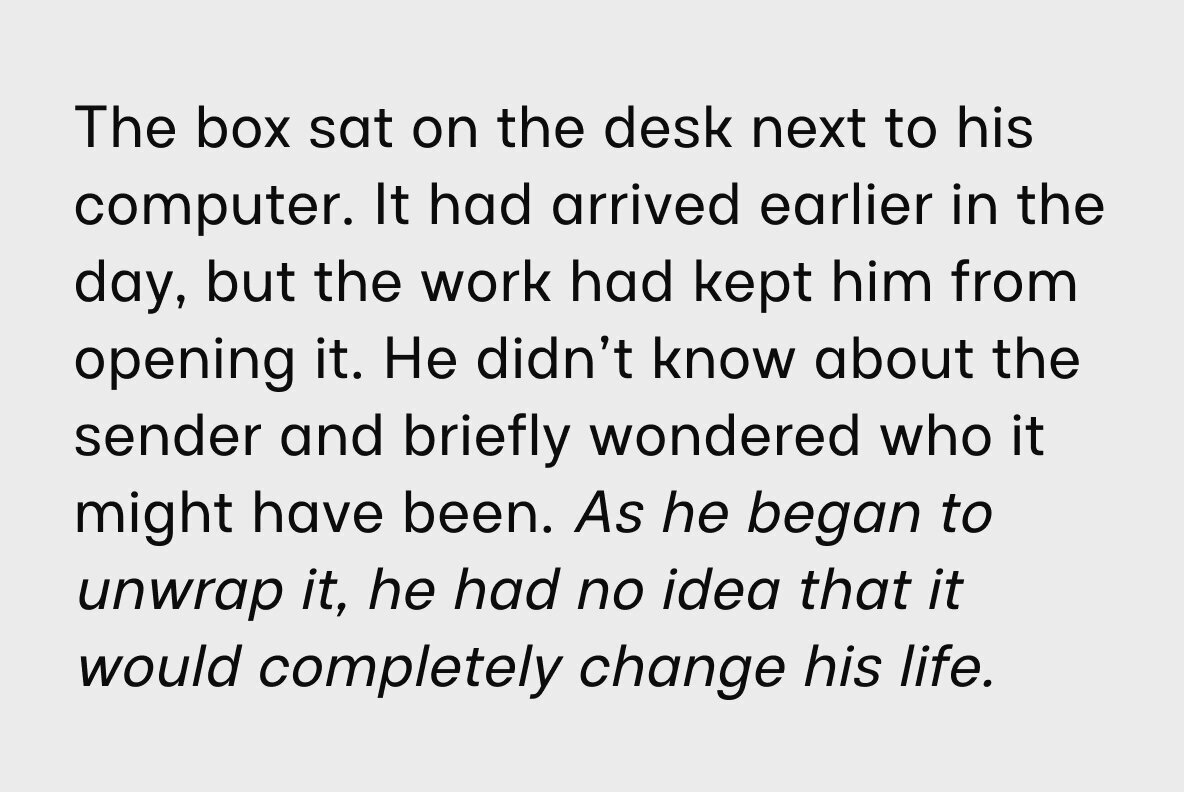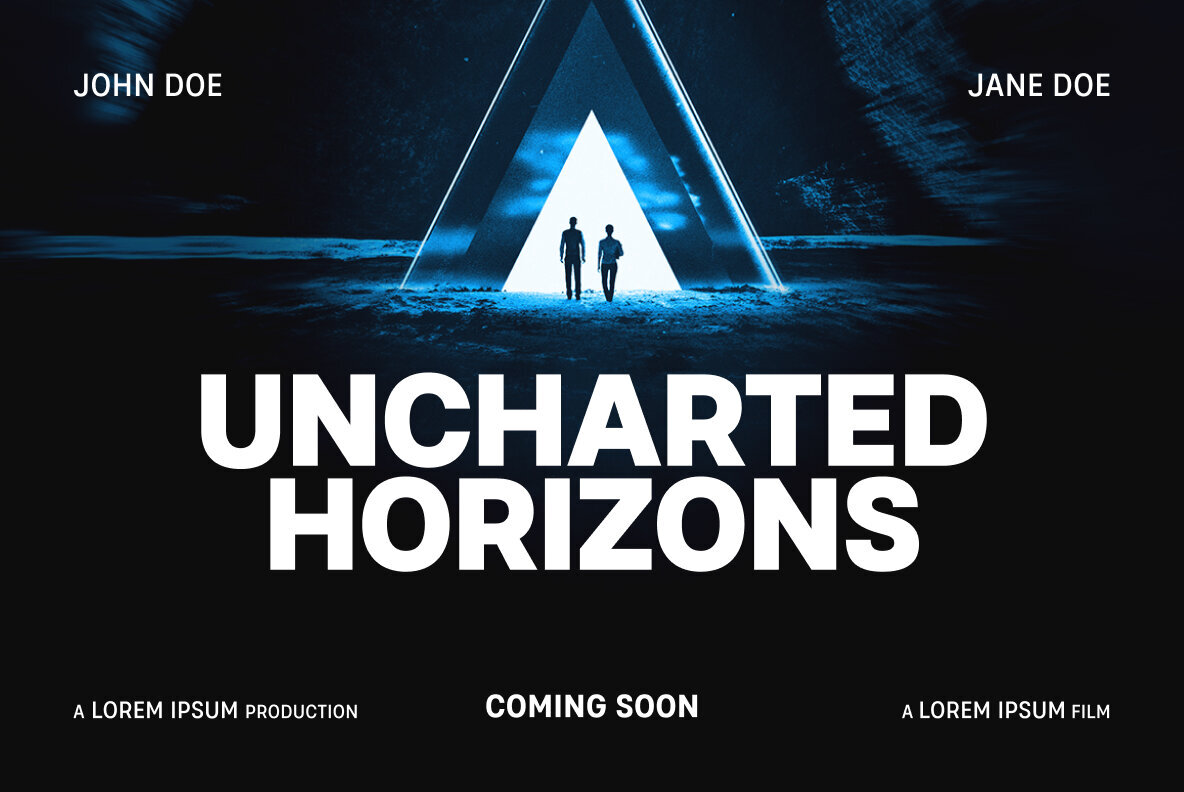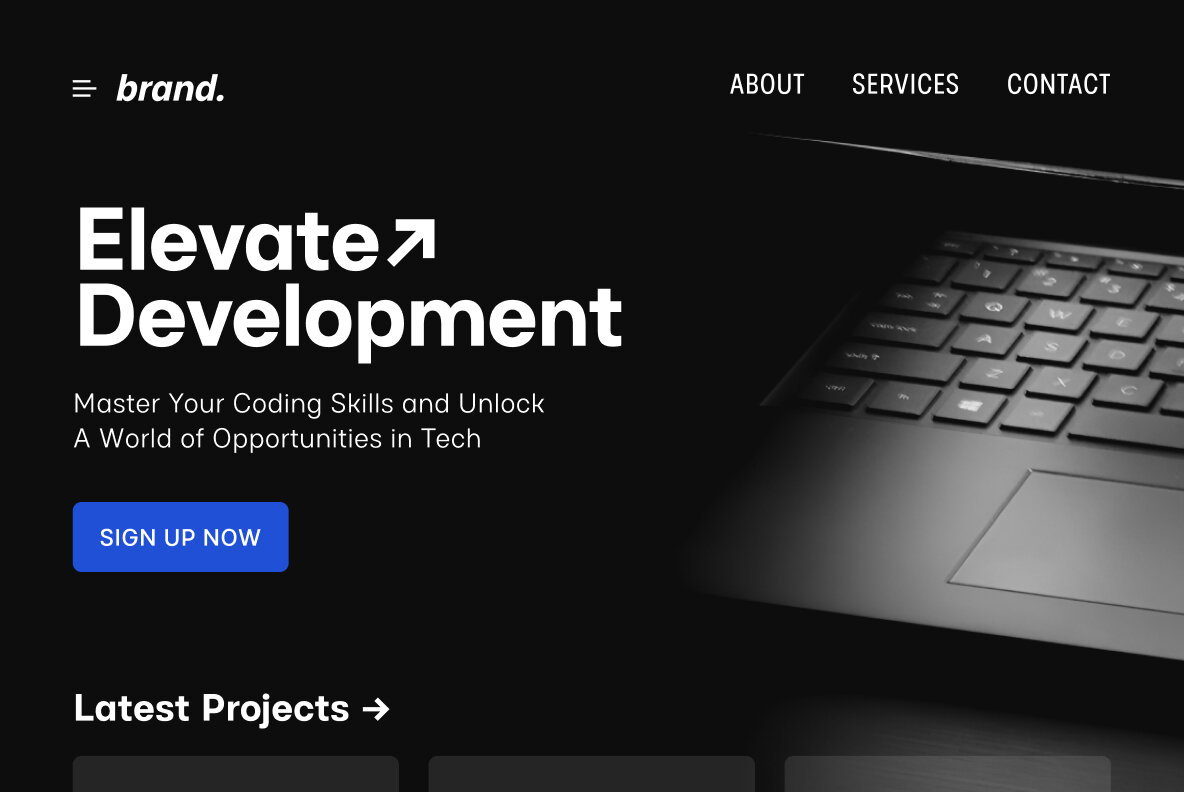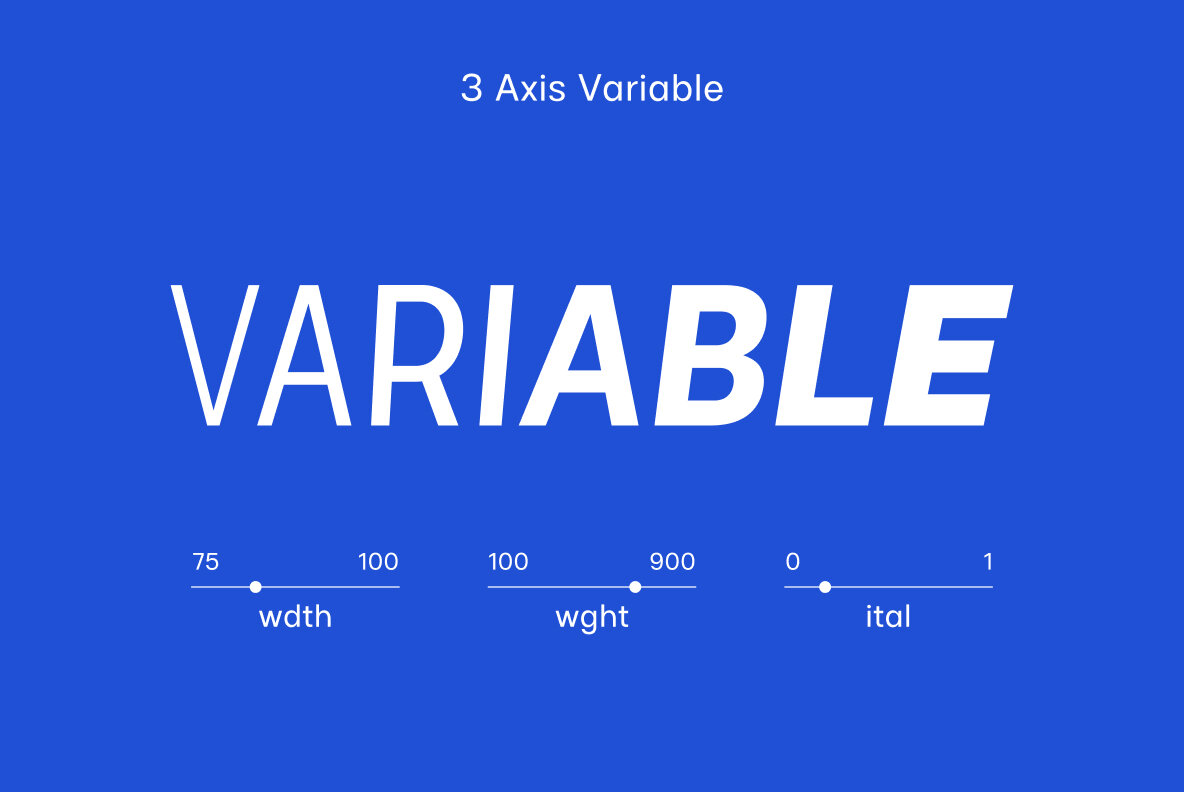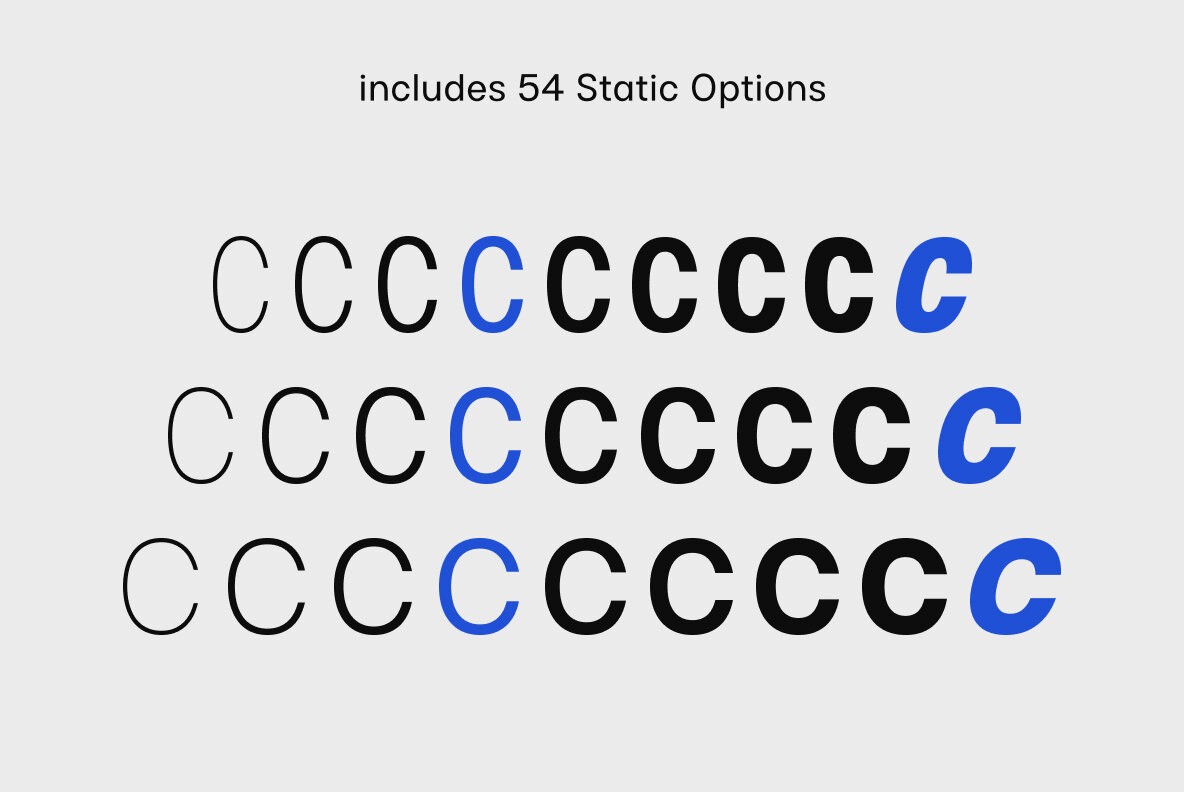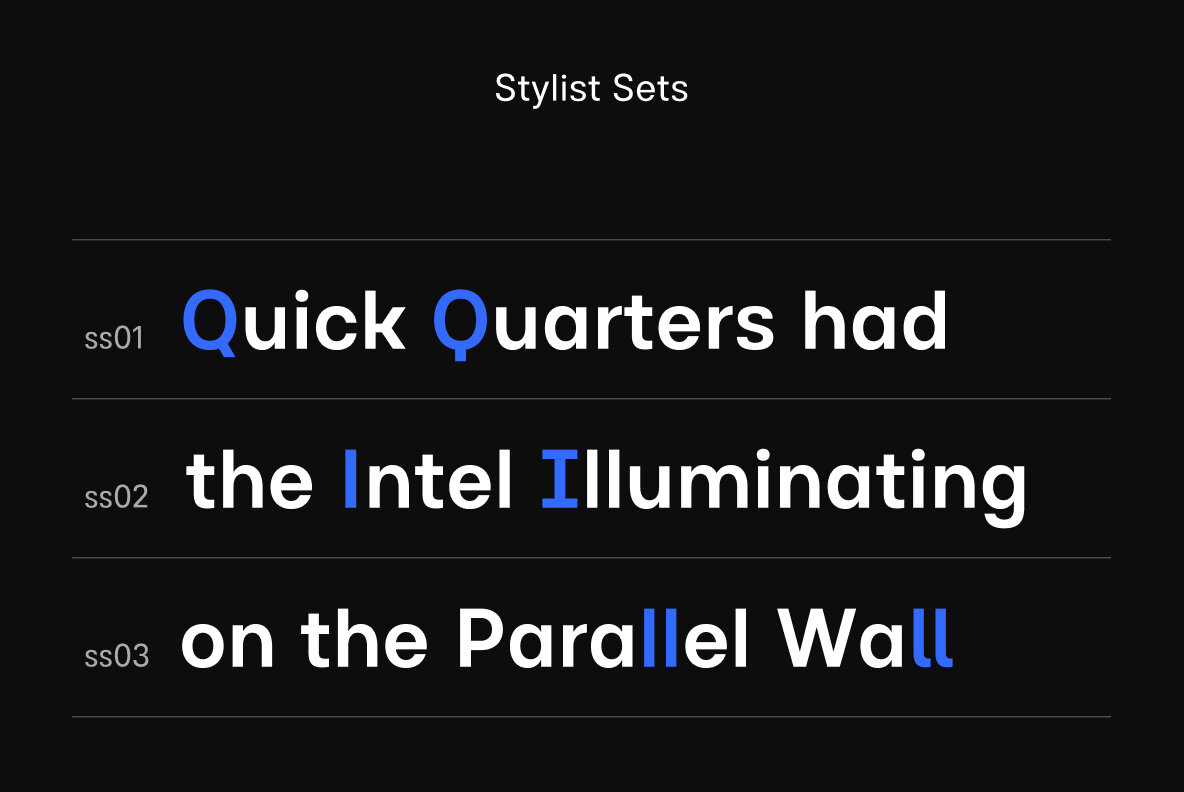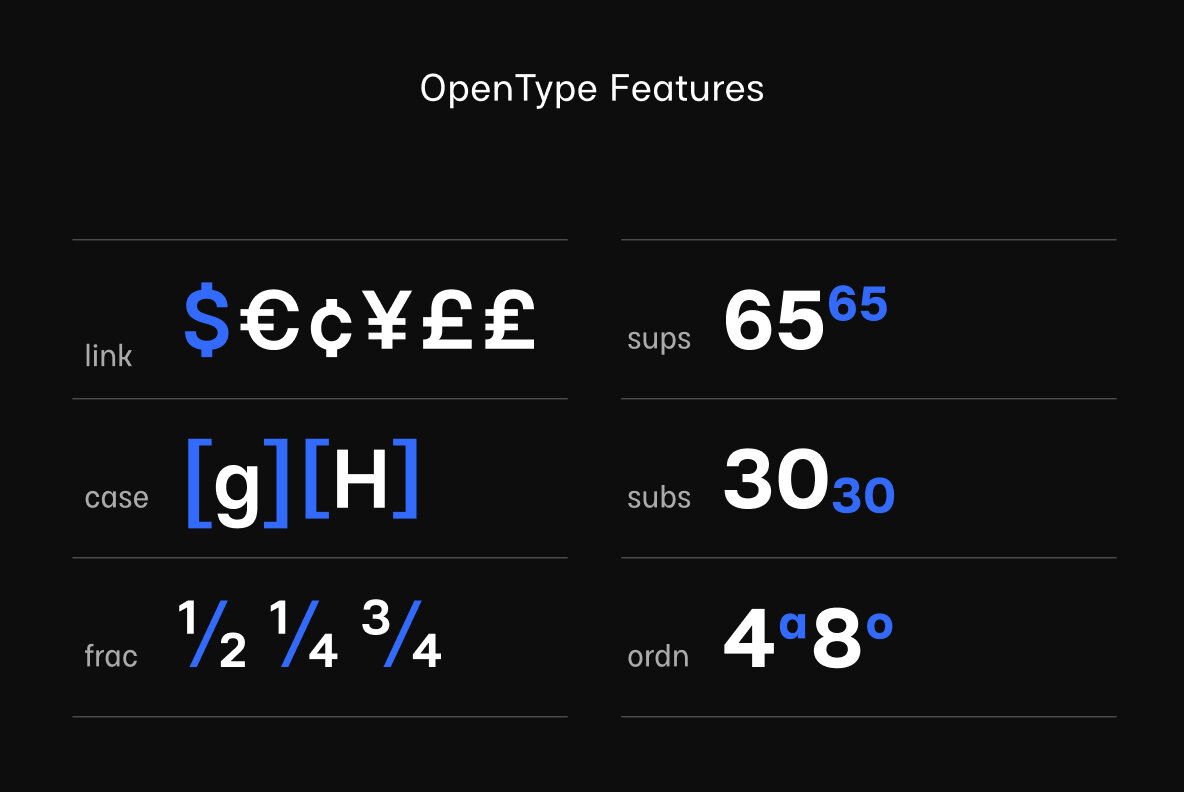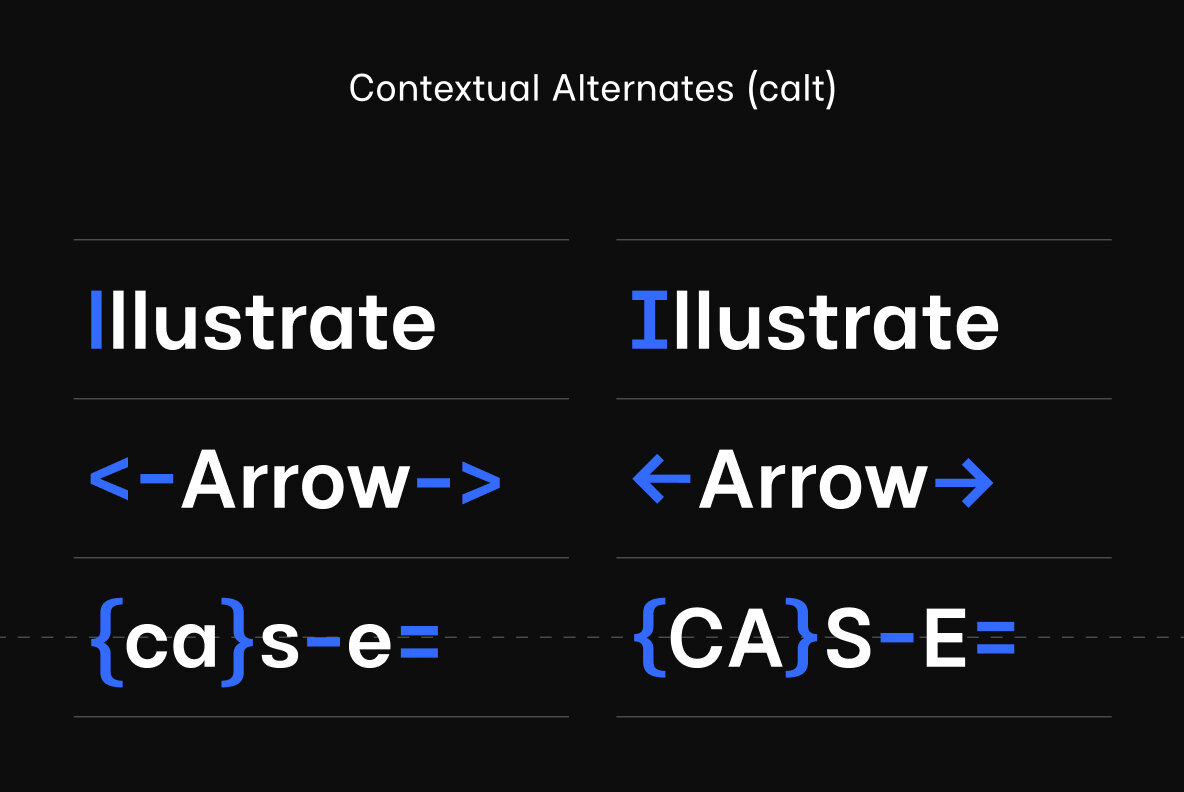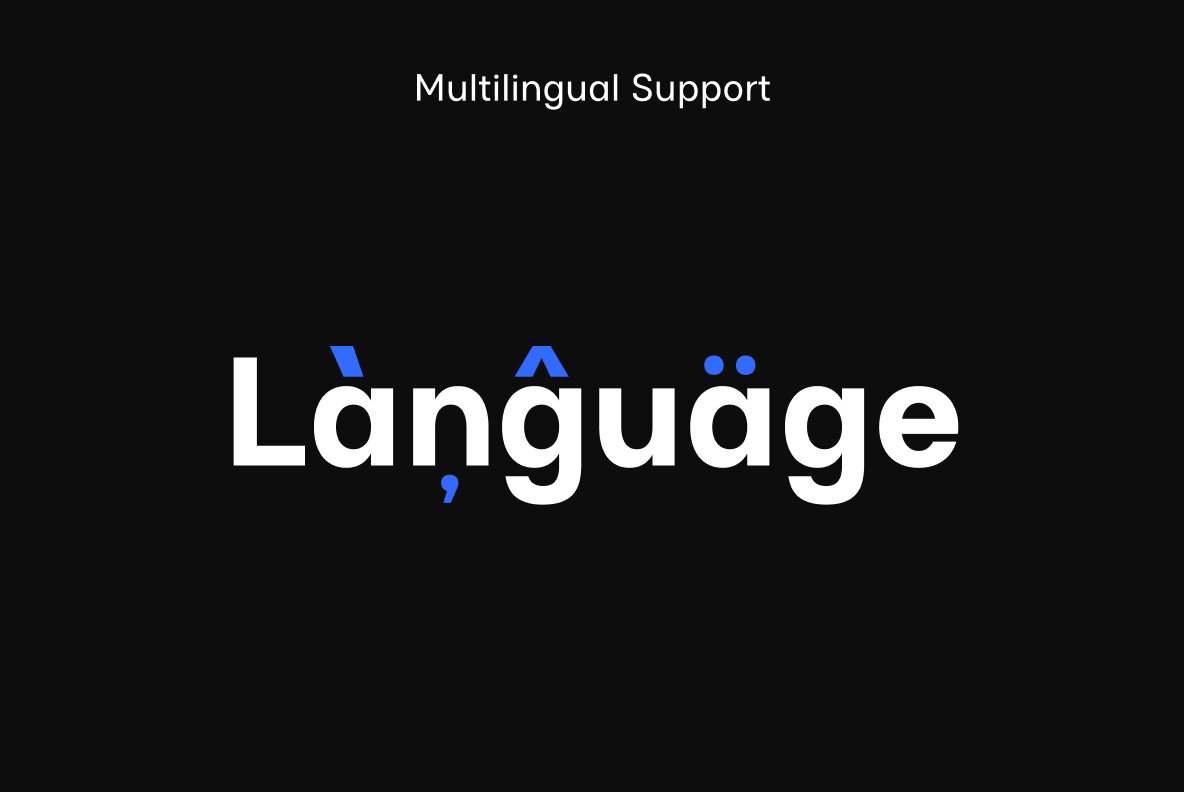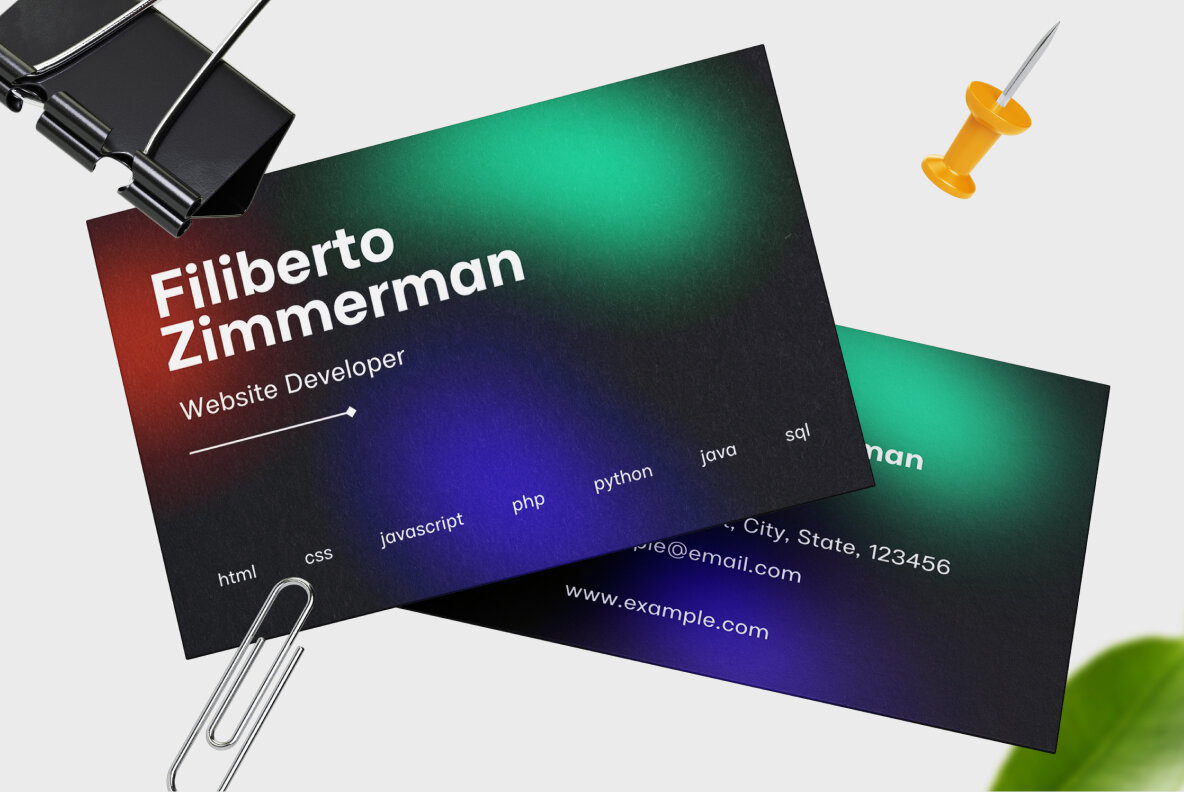
Glimp Variable Font
Glimp Variable, is a three axis variable geometric font family across width, weight and italic axis. Glimp Variable has 3 widths, 9 weights, and corresponding italics, with total of 54 static styles. It features a rich set of opentype features such as stylist sets, contextual alternates, case-sensitive forms, superscripts, subscripts, fractions, and more. Glimp Variable is expertly crafted to be your next choice across a diverse array of projects, be it branding, web design, print materials, or presentations. It's made to blend everywhere.